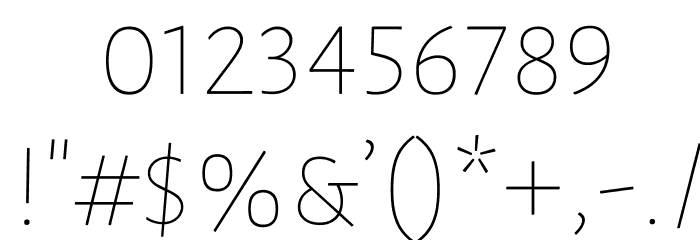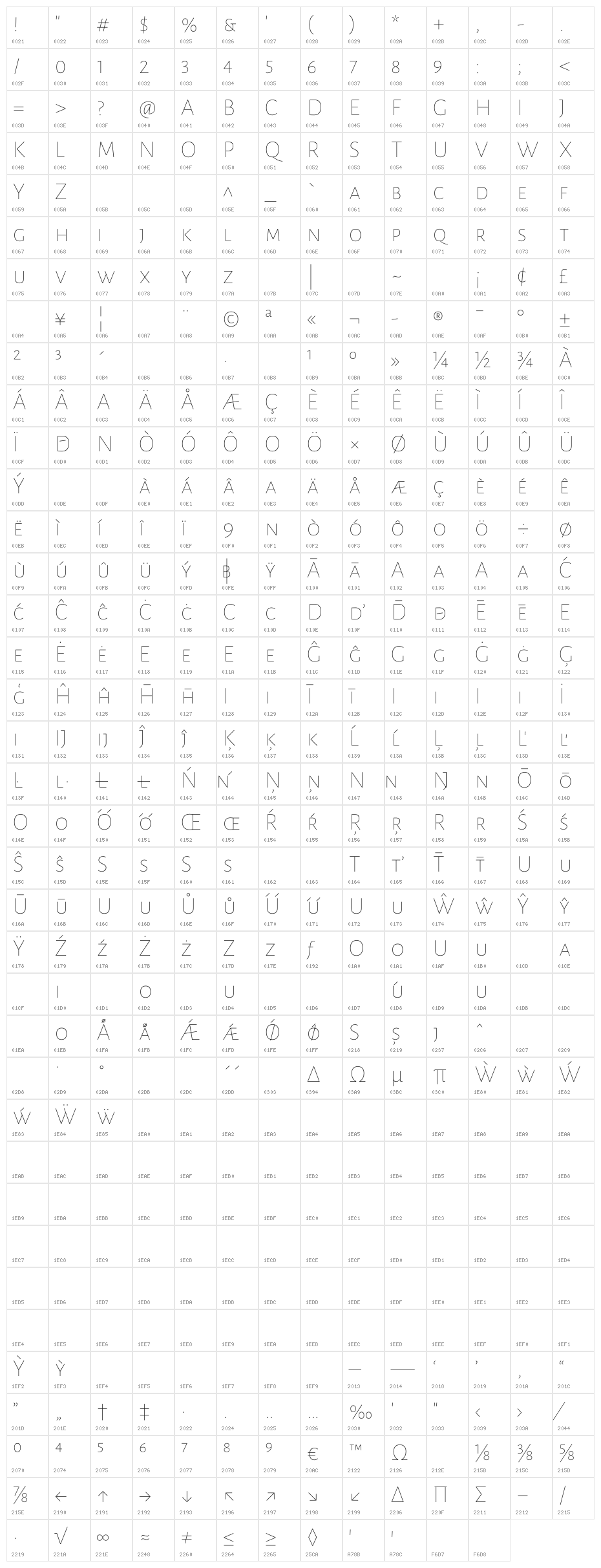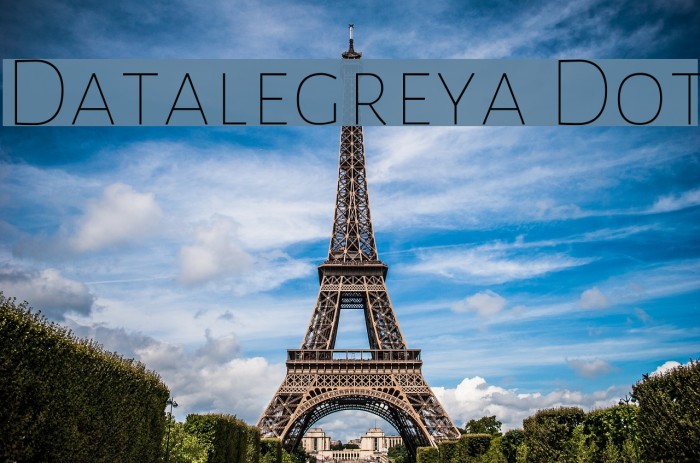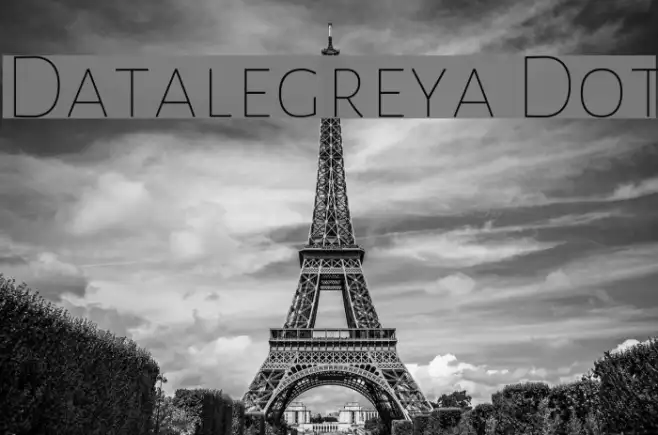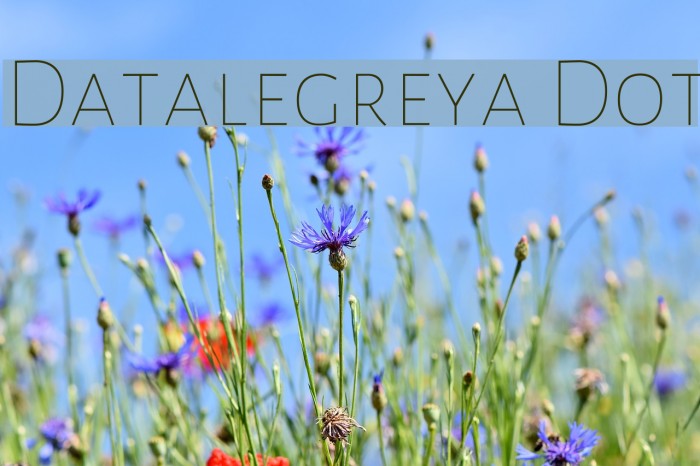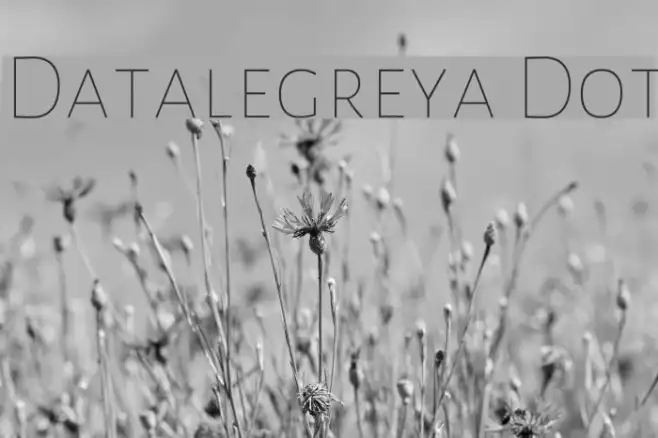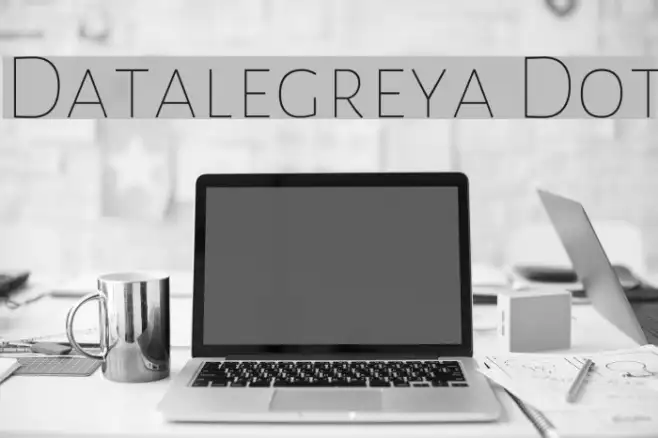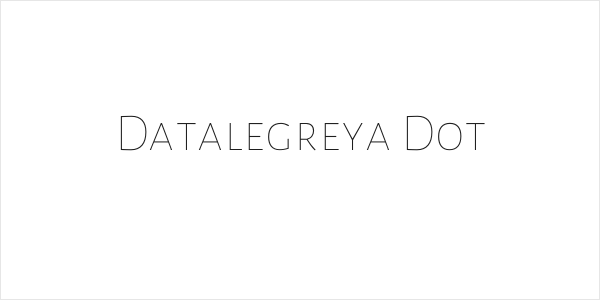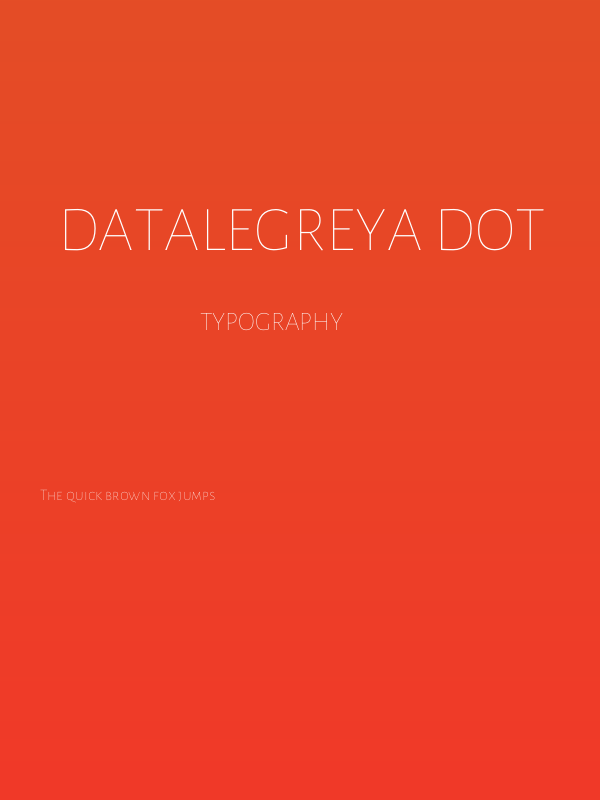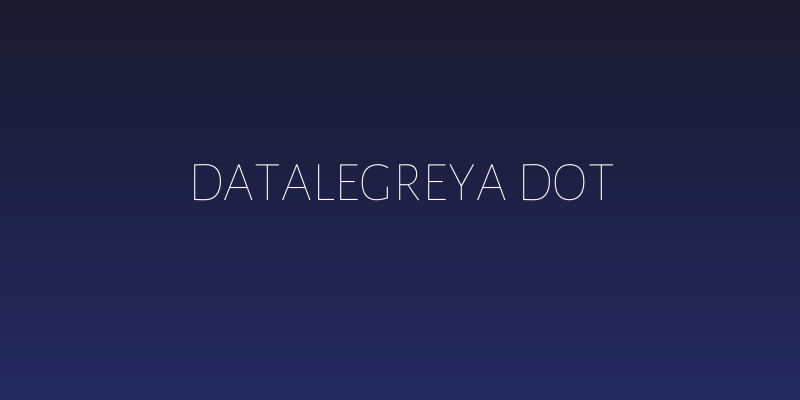
Datalegreya Dot Font
Datalegreya Dot Description
This font features a modern and clean design with a geometric structure. The characters are crafted with precision, offering a sleek and minimalist aesthetic. The uppercase and lowercase letters maintain a consistent style, with uniform stroke widths that contribute to a harmonious appearance. The numerals are clear and legible, complementing the overall design. Special characters are included, maintaining the same stylistic integrity. This font is versatile, suitable for both digital and print media, and can enhance a variety of design projects with its contemporary look.
| Proposed Projects | Ideal for branding, editorial design, web design, and advertising. |